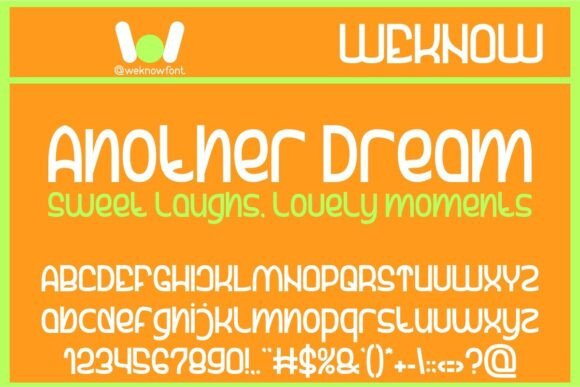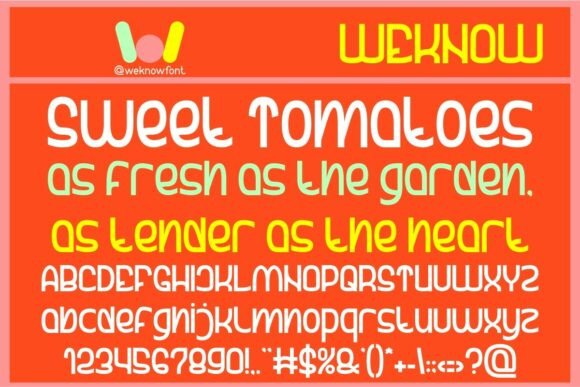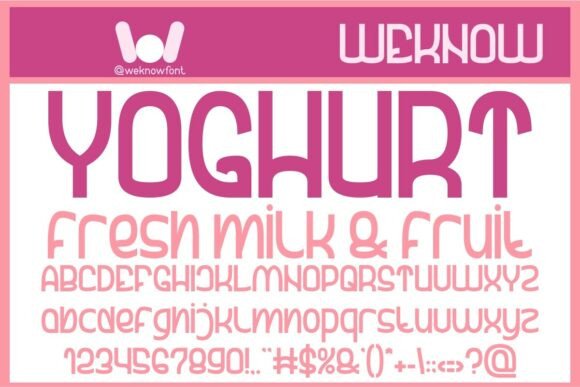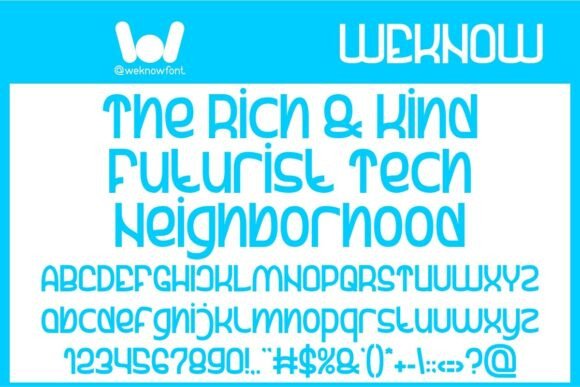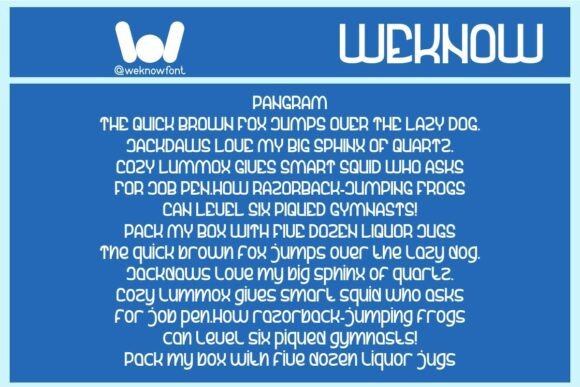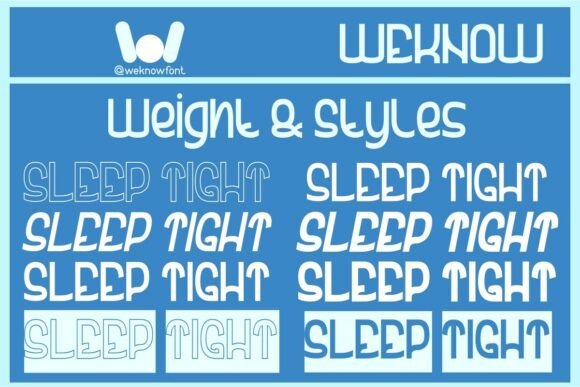
Introduction to Sleep Tight Font
Introducing Sleep Tight, your go-to display font for an array of design projects.
This eclectic and friendly typeface boasts a unique penmanship style that evokes a playful yet sophisticated aesthetic Its retro-futuristic charm makes Sleep Tight a standout choice for anchoring your logos, headlines, and brand identities.
Key Features of Sleep Tight Font